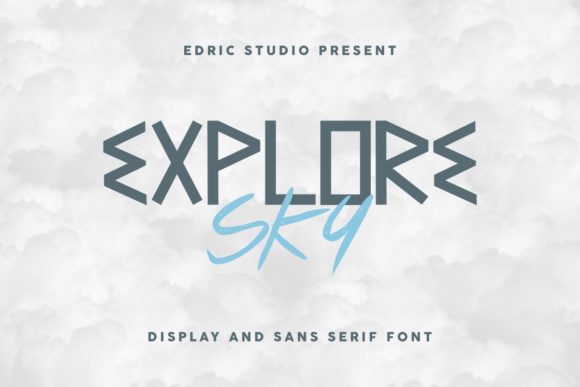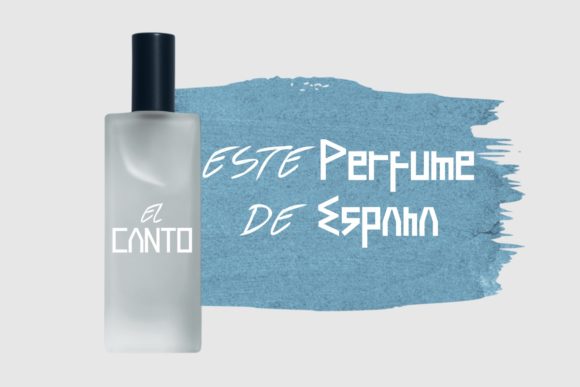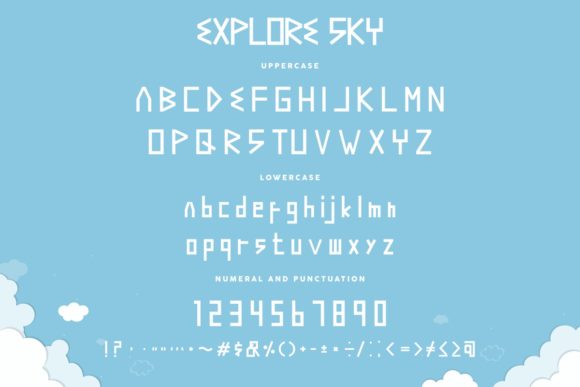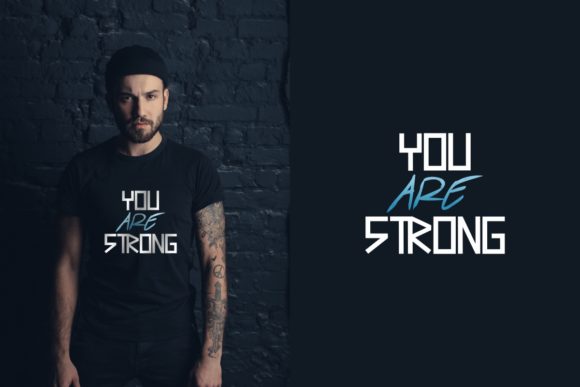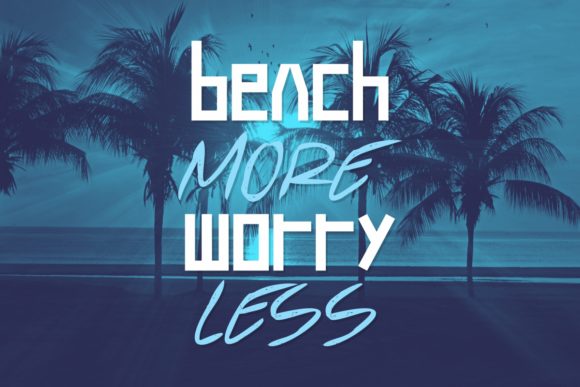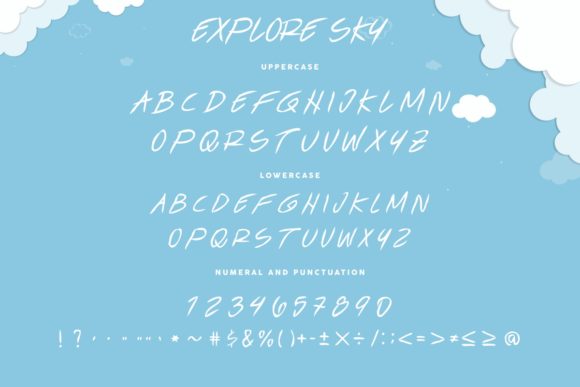
Unleash Your Creative Potential with Explore Sky Font
Have you ever stared at a blank page, waiting for the perfect font to bring your design to life? That moment of inspiration is a magical experience, and with the right tool, it can be a recurring one. For designers, finding the perfect font can make all the difference between a good design and a great one.
Enter Explore Sky Font, a display font designed to elevate your creative ideas to new heights. This masterfully crafted font is not just a visual element, but a statement piece that can add depth and emotion to your work. With Explore Sky Font, you’ll be able to express yourself in a way that truly reflects your vision.
Whether you’re a seasoned designer or just starting out, Explore Sky Font is a valuable addition to your toolkit. Its versatility and unique character make it an ideal choice for a wide range of projects, from branding and advertising to digital media and more.
Key Features of Explore Sky Font
- Font Family: Explore Sky Font is a sans-serif font family designed for digital use.
- Unique Characteristics: Explore Sky Font features a unique blend of modern and futuristic design elements, making it ideal for use in digital interfaces, signage, and branding.
Explore Sky Font Review
Overall, I found the Explore Sky Font to be a visually appealing and creative choice for designers looking to add a touch of whimsy to their projects. ✨ The font’s unique blend of modern and hand-drawn elements makes it a great option for projects that need a bit of personality.
- The font’s versatility makes it suitable for a wide range of projects, from logos to body text.
- The creative and playful feel of the font adds a touch of sophistication to any design.
- The font’s legibility is also quite good, making it easy to read even at smaller font sizes.
- ⚠️ The font may not be suitable for projects that require a more formal or traditional look.
- ⚠️ The font’s uniqueness can sometimes make it difficult to pair with other fonts, requiring more creative matching.
- ⚠️ The font’s weight and spacing can be a bit inconsistent at times, requiring some manual adjustment.
Overall, I would recommend the Explore Sky Font to designers looking for a creative and playful font to add some visual interest to their projects. With a bit of creativity and experimentation, this font can be a great asset to any designer’s toolkit.
Explore Sky Font is ideal for:
- Creatives looking for a unique and futuristic font.
- Designers working on projects related to space, technology, or innovation.